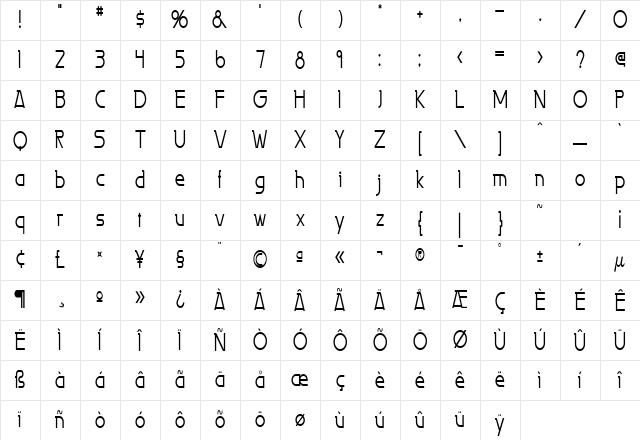
Persia Thin Normal
Persia Thin Family
Design Context for Persia Thin
Persia Thin is a composed and adaptable typeface that performs quietly and consistently across a wide range of design contexts. Its slender proportions lend an understated elegance to any composition.